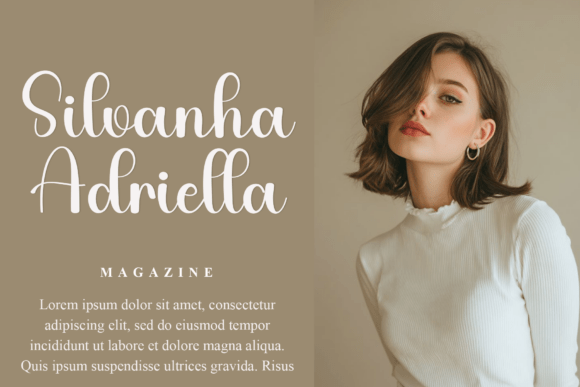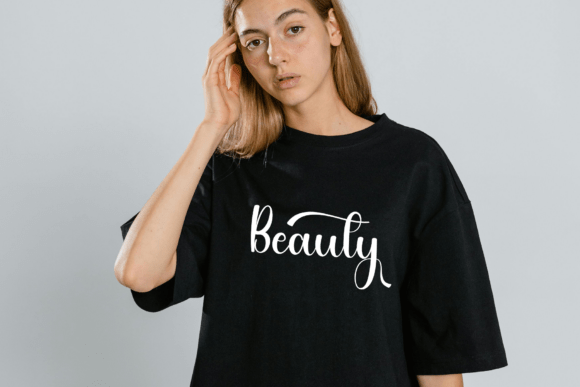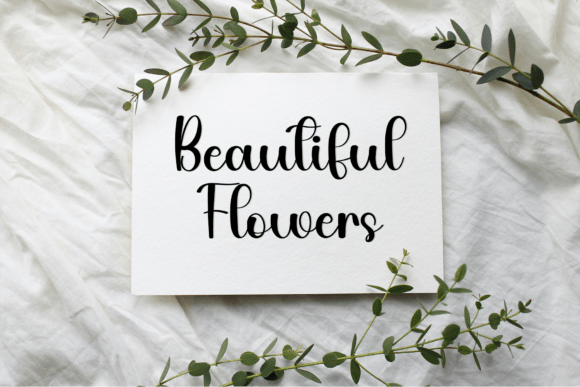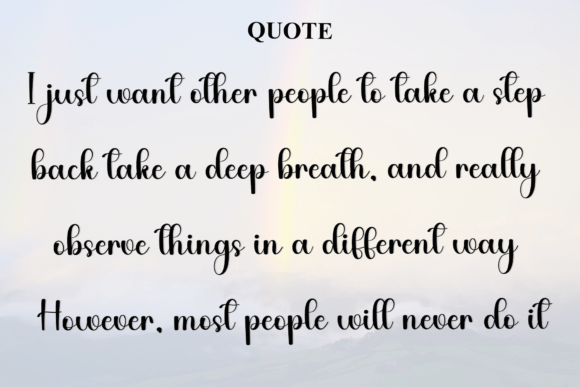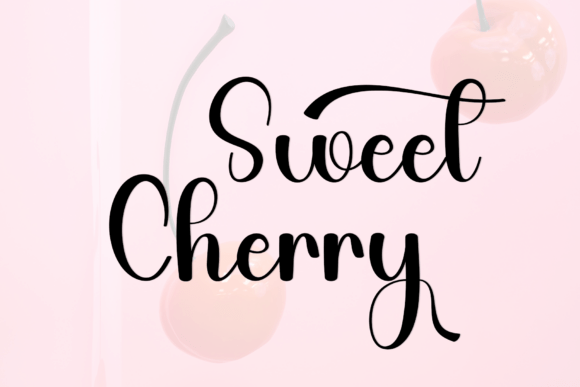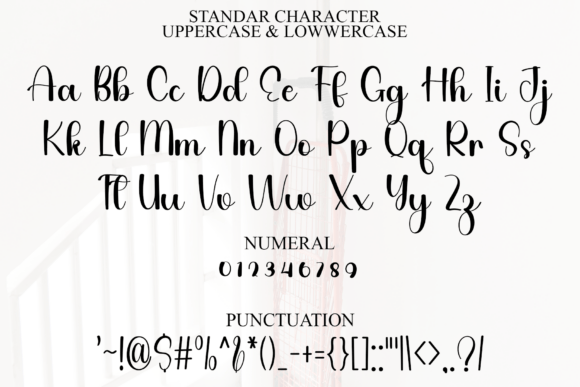
The Magic of Dignity Beach Font: A Festive Holiday Companion
It’s that time of the year again – the holiday season is just around the corner, and with it comes the pressure to create stunning designs that capture the spirit of the festivities. I still remember the year I was tasked with designing a Christmas card for a client’s family. I spent hours scouring font libraries, trying to find the perfect typeface that would convey the cheer and nostalgia of the season. That’s when I stumbled upon Dignity Beach Font, a game-changer in the world of holiday design.
A Personal Encounter with Dignity Beach Font
As I worked on that Christmas card, I was blown away by Dignity Beach Font’s ability to add a touch of enchantment to my design. The decorative elements and whimsical flair made my typography shine, and the client loved it! From that moment on, I knew I had to share this amazing font with fellow designers, crafters, and creative hobbyists.
An Honest Review of Dignity Beach Font
- ✨ Festive and merry vibe that’s perfect for the holiday season
- ✅ Decorative elements and whimsical flair that add a touch of magic to designs
- 🎉 PUA encoded, making it easy to access all the amazing glyphs and ligatures
- 👍 Highly versatile and suitable for various design projects, from greeting cards to holiday-themed merchandise
While Dignity Beach Font is an amazing addition to any design project, there are a few things to keep in mind:
- ⚠️ Some users might find the font a bit too ornate for certain design projects
- 🤔 Limited use outside of holiday-themed designs, as the font’s festive vibe might not be suitable for other contexts
The Backstory of Dignity Beach Font
Dignity Beach Font was designed by a talented typographer who wanted to capture the magic of the holiday season in a single typeface. Inspired by vintage holiday cards and festive decorations, this font is the result of a passion project that aimed to bring joy and cheer to designers and crafters alike.
Q: What is PUA encoding, and how does it benefit Dignity Beach Font?
A: PUA (Private Use Area) encoding is a way of mapping font glyphs to Unicode code points, making it easier to access and use special characters. In the case of Dignity Beach Font, PUA encoding allows users to easily access the font’s amazing glyphs and ligatures.
Q: Is Dignity Beach Font suitable for non-holiday designs?
A: While Dignity Beach Font is primarily designed for holiday-themed designs, it can be used in other contexts. However, keep in mind that the font’s festive vibe might not be suitable for all design projects.